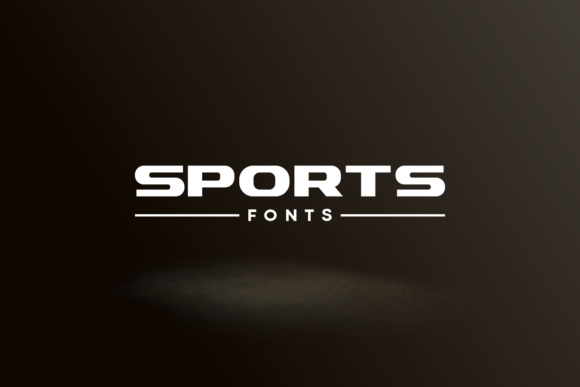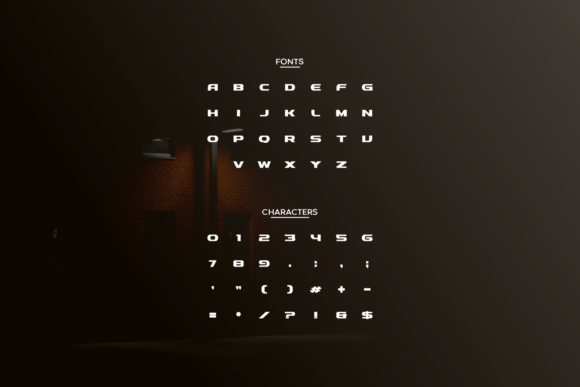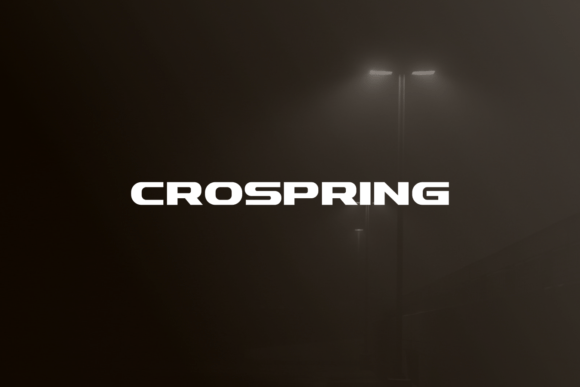
Introduction to Groprod Font
Groprod is a modern, elegant, and futuristic-looking font, with a thinner and contemporary version.
This font would be ideal for web design, business cards, or anything else that requires a unique touch .
Key Features of Groprod Font